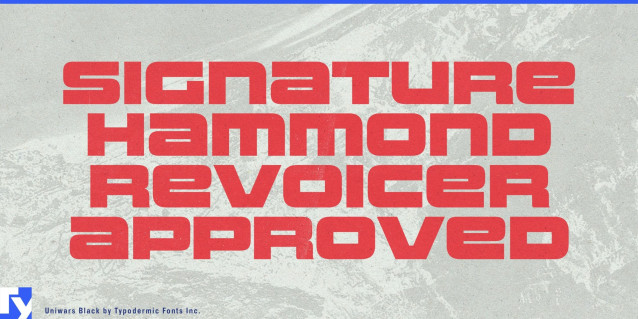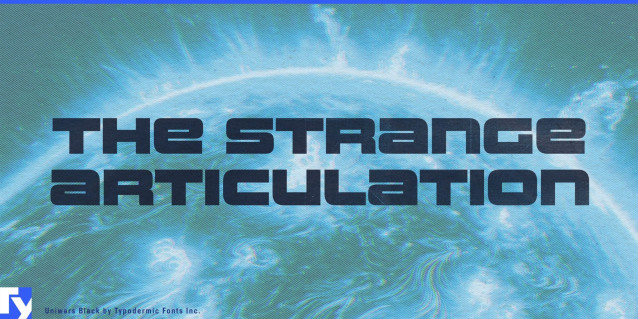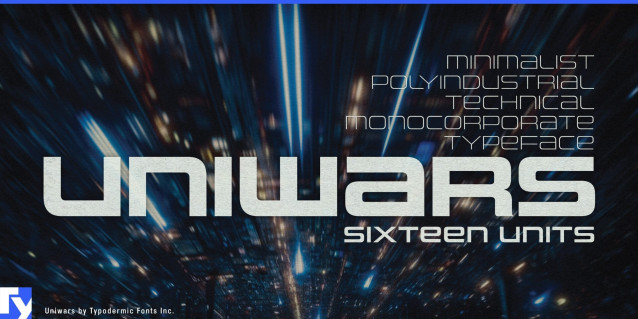
Uniwars Font
Uniwars Font – Inspired by the precise, angular typography of Japanese industrial signage, Uniwars distills that aesthetic into a modular grid of clean strokes and unwavering geometry. Its forms are engineered for impact—strong verticals, deliberate horizontals, and sharply cut diagonals—yielding a typeface that remains crisp whether displayed on a neon-lit arcade cabinet or a high-resolution interface.
Sixteen styles, from ultra-light to black, each with matching obliques, give designers the flexibility to switch from sleek UI labels to bold display headlines without sacrificing cohesion. The character set is tuned for clarity in both digital and print environments, with generous counters and consistent weight distribution ensuring every letter holds its shape under demanding viewing conditions.
Smart features—fractions, alternates, and stylistic sets—extend its versatility, while the underlying grid logic invites a sense of order even in the most kinetic layouts. Whether commanding attention in a game HUD, guiding players through a sci-fi world, or branding a product that lives in the future, Uniwars delivers the mechanical precision and visual authority to make every word count.